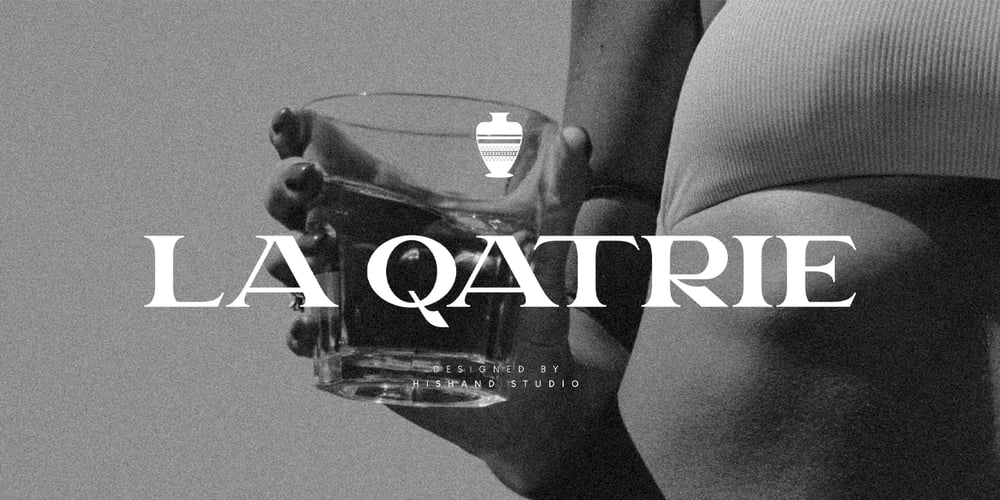
LA QATRIE
LA QATRIE font
LA QATRIE Font Family was designed by Putu Dody Permana and published by Hishand Studio. LA QATRIE contains 3 styles and family package options. Experience refined design with La Qatrie, a display font that boasts an elegant look and a touch of luxury, setting a new standard for sophistication in typography. Perfect for those needing a touch of elegance, classy, stylish, beautiful bold type, and modernity for their design. Complete with ligatures alternates regular hollow icon kerning multilingual support